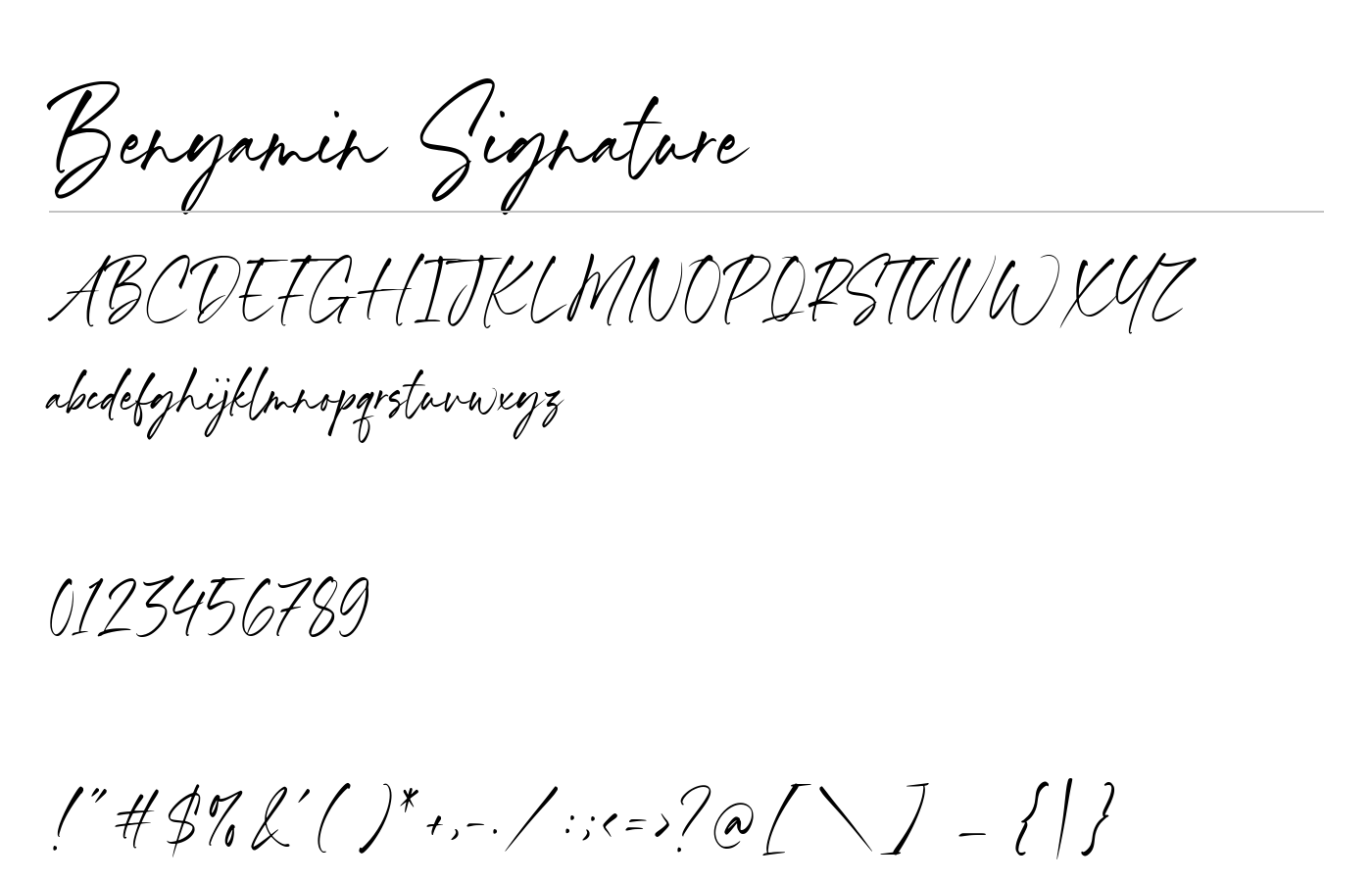
Benyamin Signature Font is a stylish, handwritten script that captures a natural, elegant flow with its slender, slightly irregular strokes and tall, narrow letterforms. Its light weight and airy spacing give it a sophisticated yet personal feel, making it perfect for branding, invitations, and creative projects that want to convey authenticity and charm. This font shines in designs where a modern signature or handwritten touch is desired, adding warmth and individuality.
Benyamin Signature Font
About Benyamin Signature Font